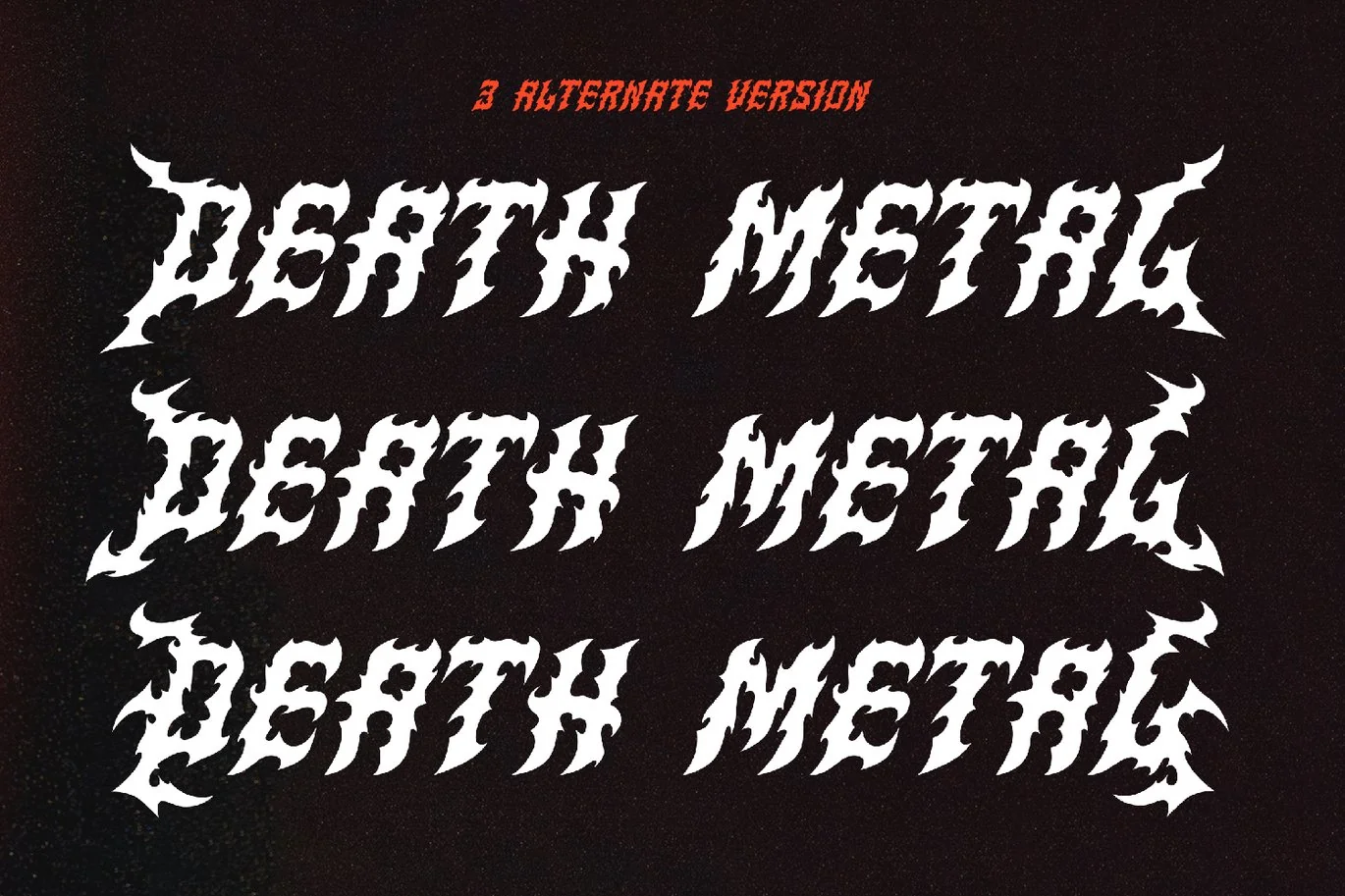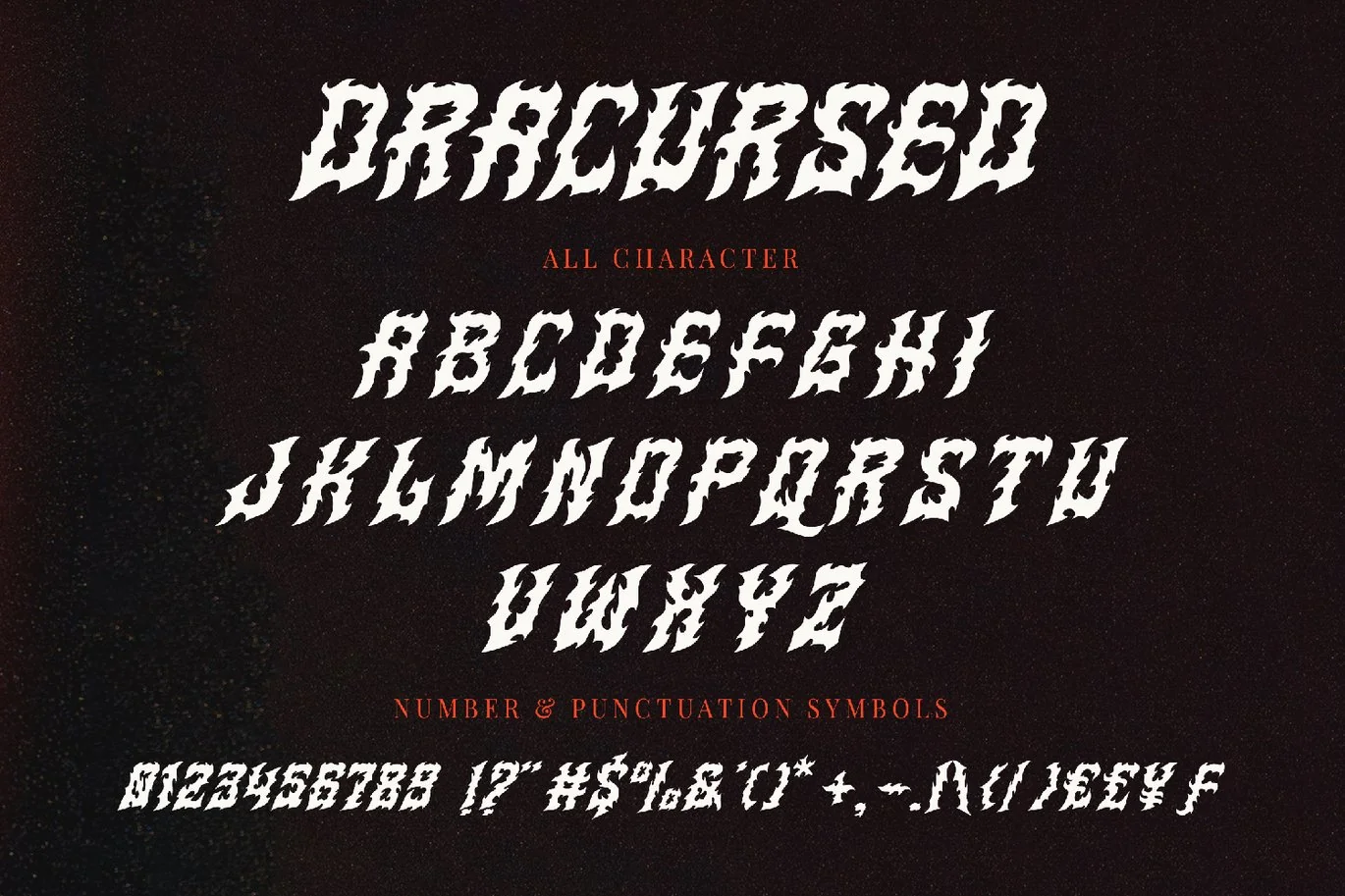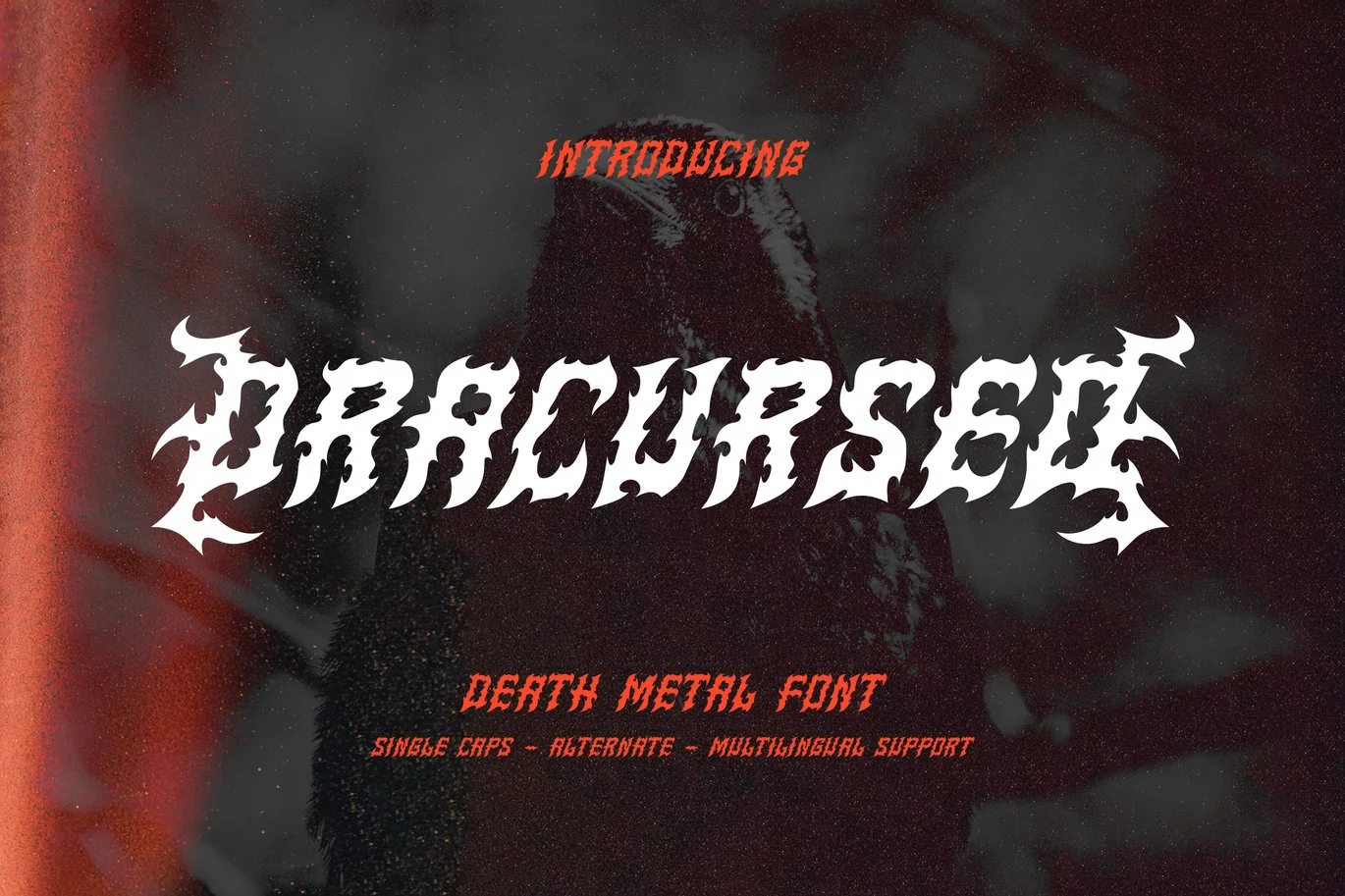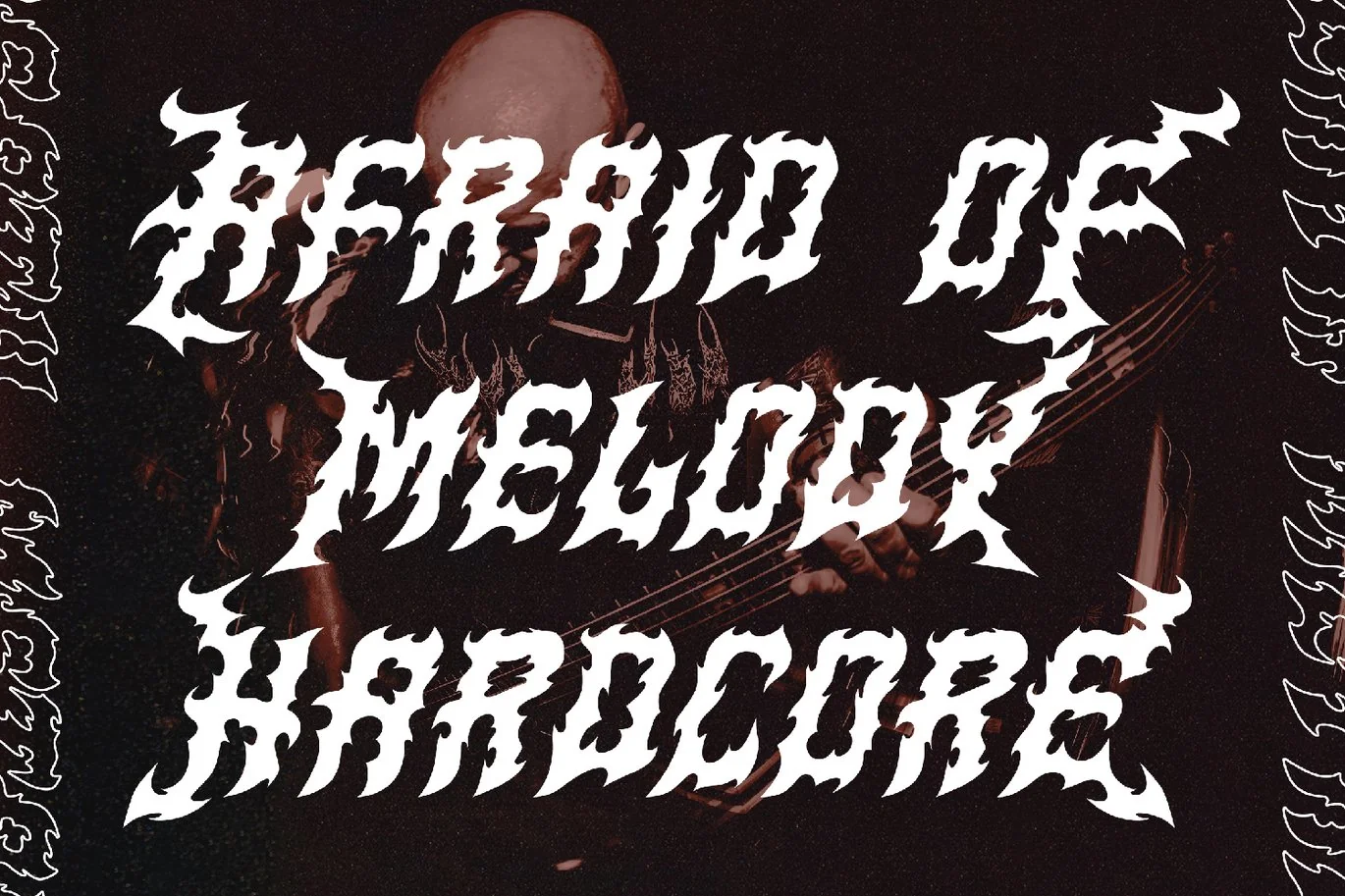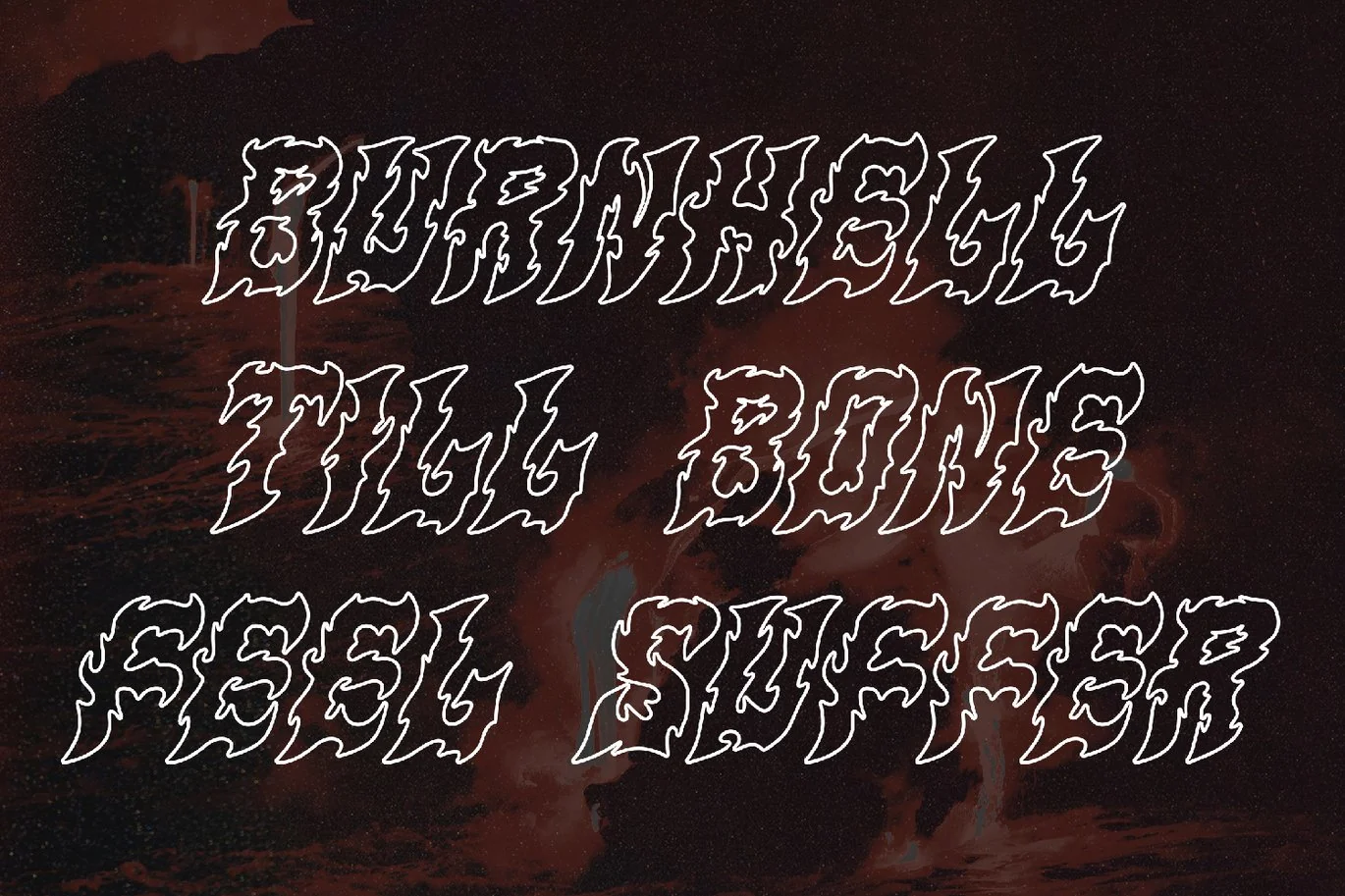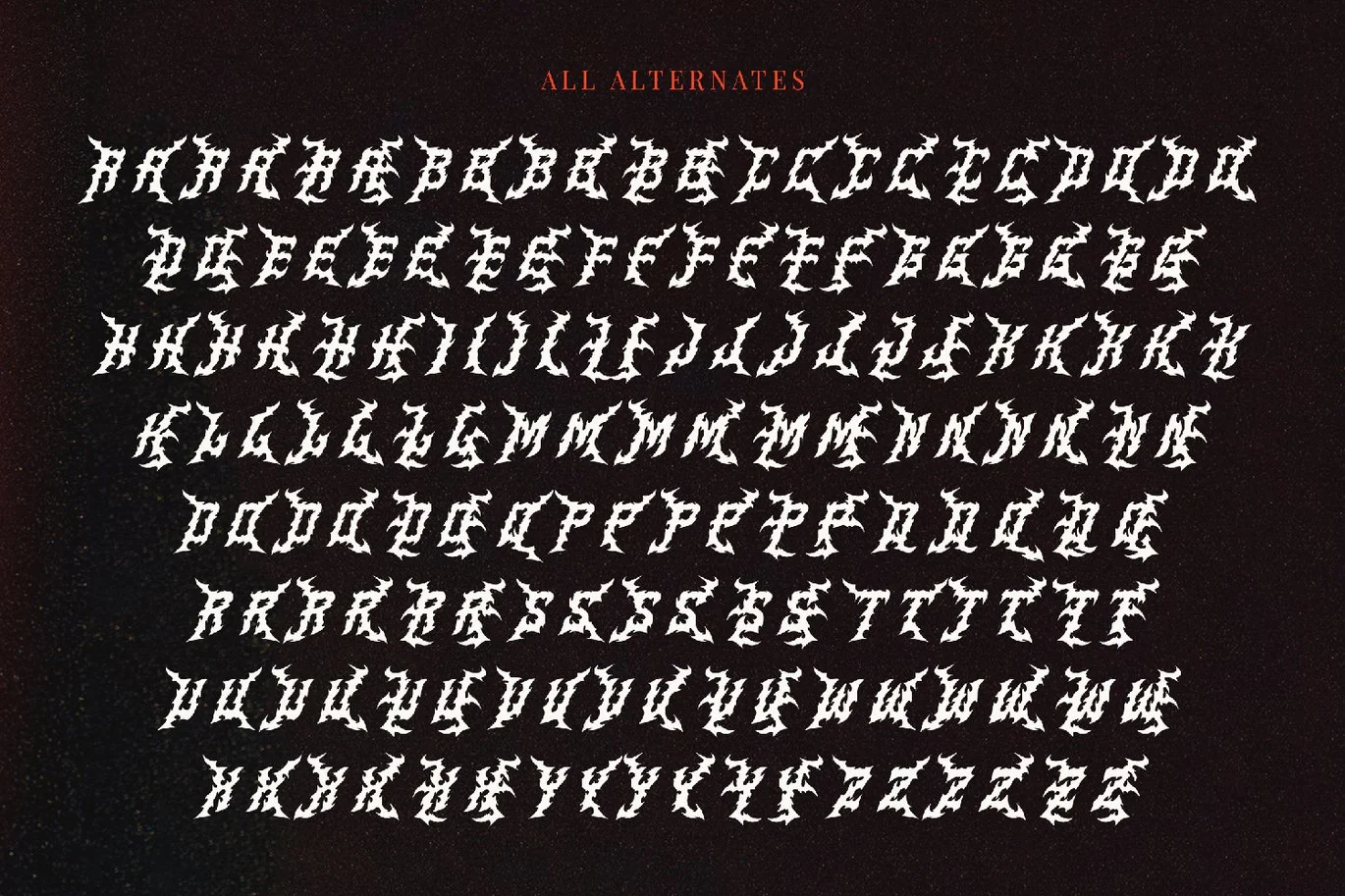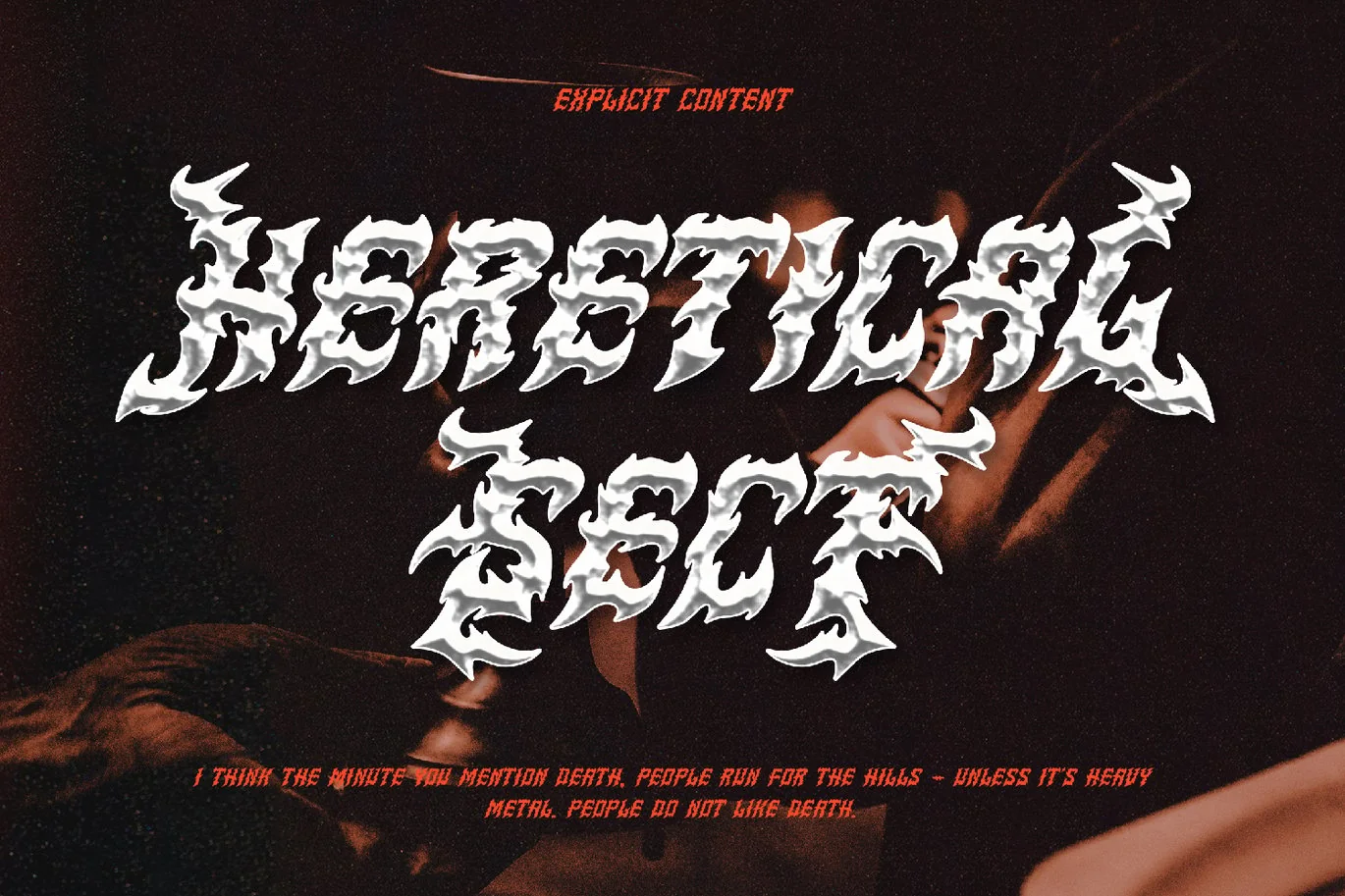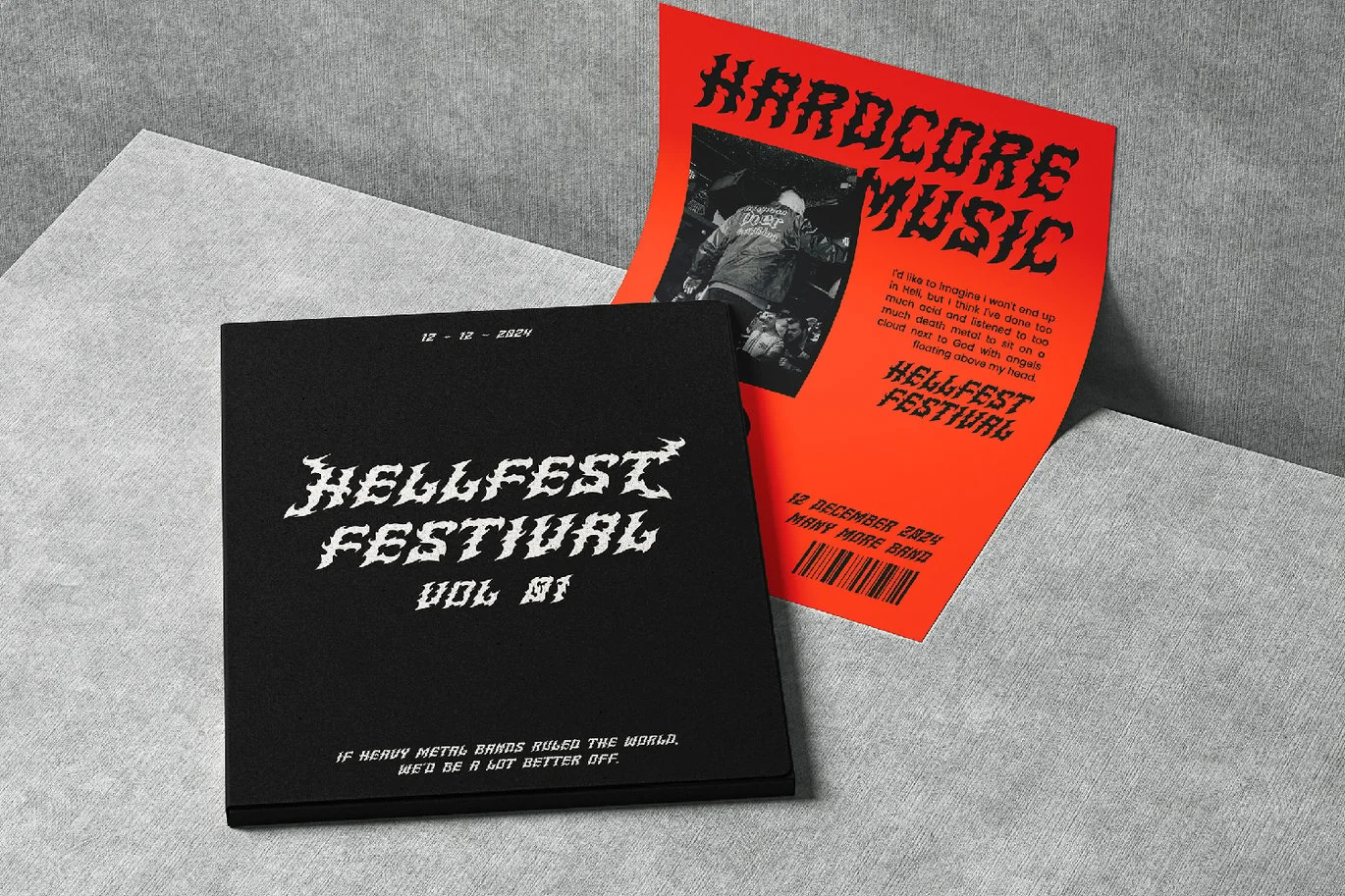
Dracursed – Death metal Font
Dracursed – Death metal Font contains a lowercase, uppercase, symbol, and also supports multi-language. There’s a lot of ligature in this font. Dracursed – Death metal Font also comes with ligatures, stylistic alternates, and many more.
this font is suitable for fashion, branding, catalog and other design that you want.